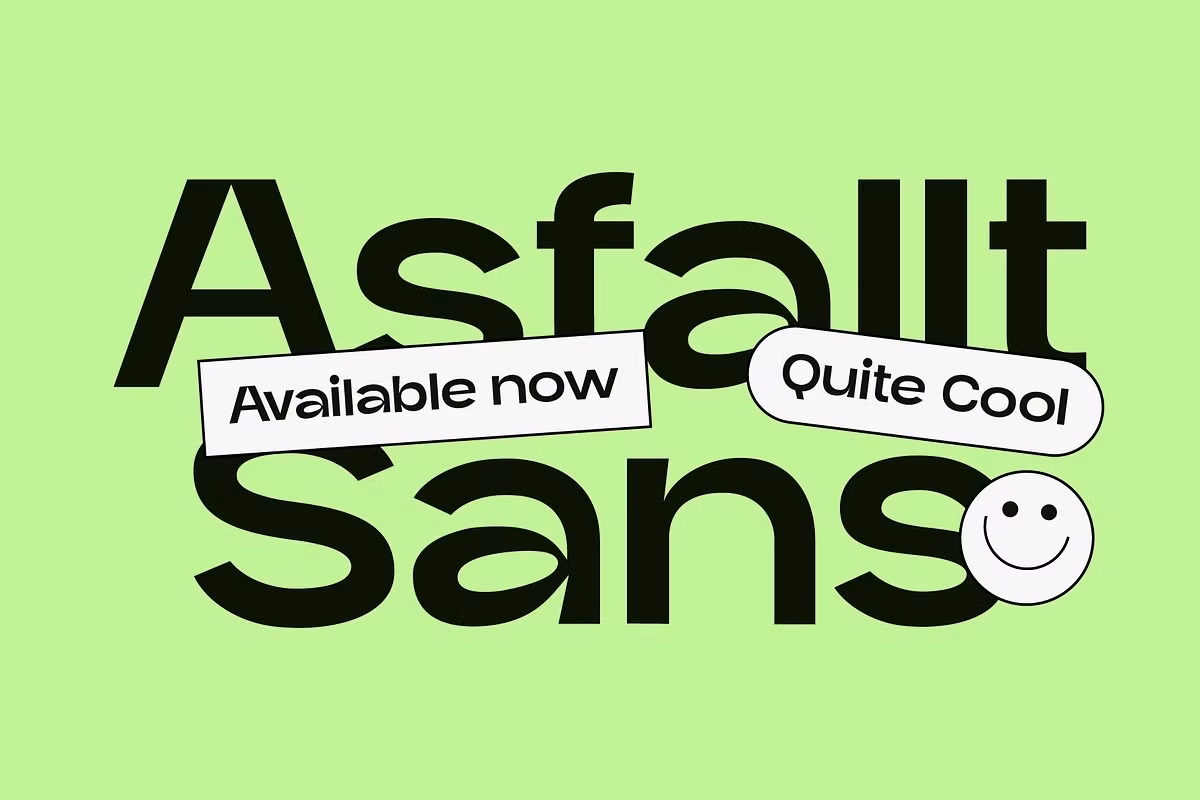
Asfallt - Sans Type Free Download
Please note, you must purchase this font for commercial use. However, you can easily download Asfallt - Sans Type Free Download for personal use and testing purposes. Asfallt - Sans Type is a modern and clean sans-serif typeface designed with boldness and versatility in mind. Perfect for both digital and print projects, this font features a sleek, minimalistic design that works well for logos, websites, branding, posters, and more. With its strong geometric shapes and sharp edges, Asfallt - Sans Type Free Download brings a contemporary and professional look to your design work. Whether you're working on a tech brand, a modern advertising campaign, or a dynamic website, this font ensures your message is delivered with clarity and style. Download Asfallt - Sans Type Free Download today and explore its potential before opting for a commercial license.